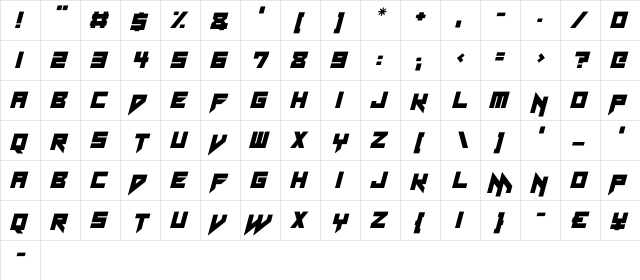
Neon Vampire Italic
Design Context for Neon Vampire Typeface
Neon Vampire channels digital-age aesthetics through its sharp, structured letterforms — ideal for brands that want to signal innovation. The dynamic lean of this cut emphasises speed and emphasis in any layout.